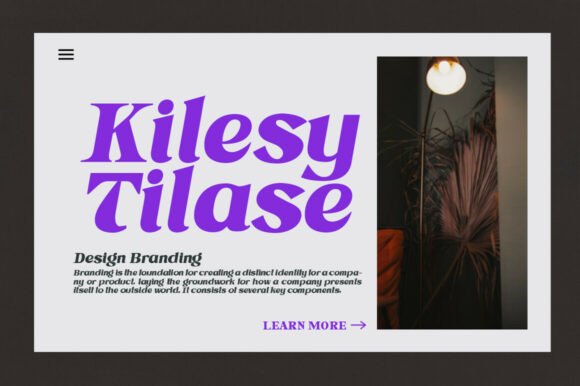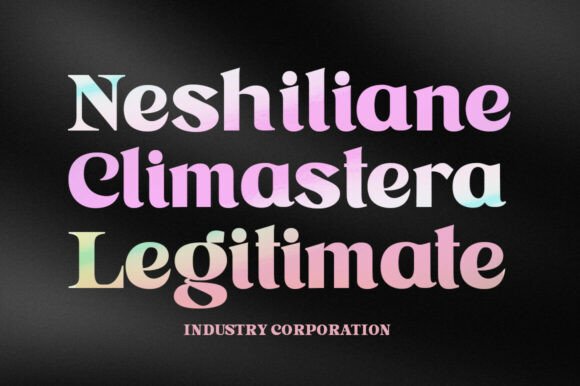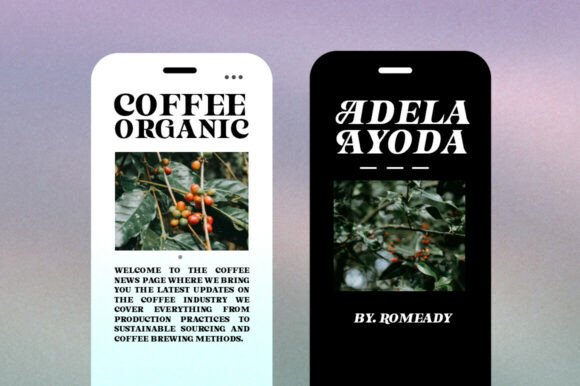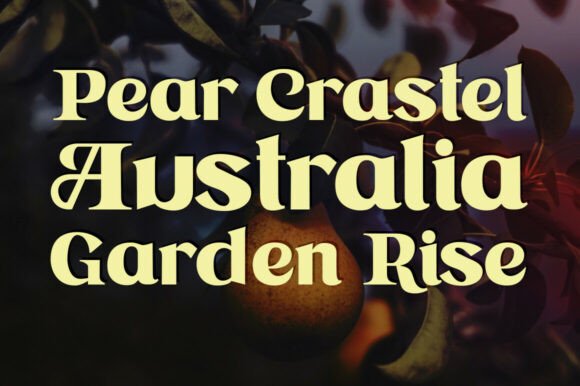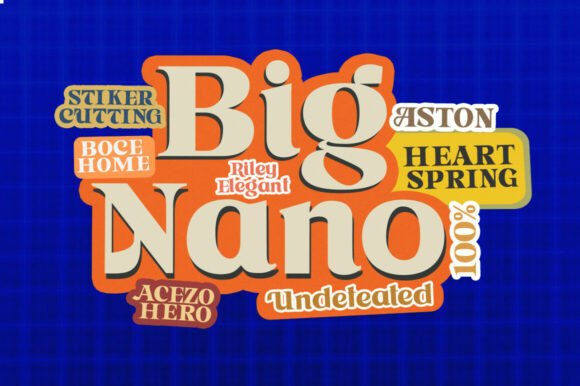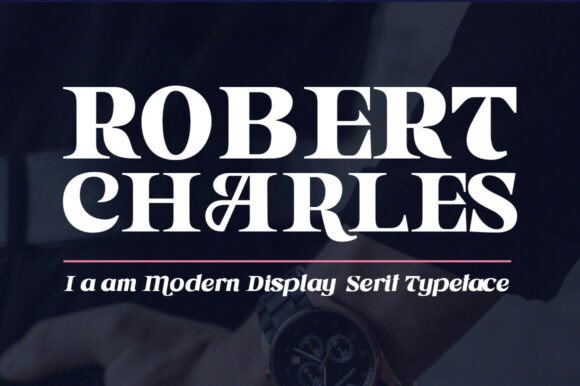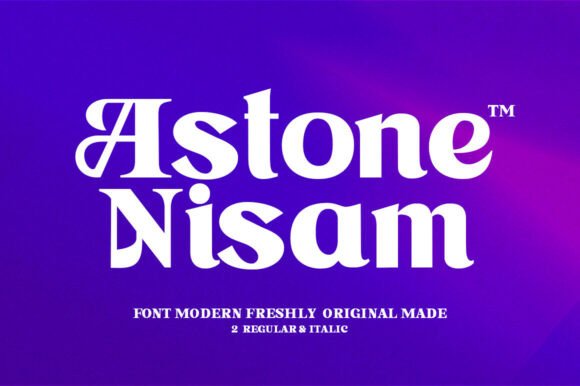
The Designer’s Delight: Astone Nisam Font
I’ll never forget the time I was working on a logo design project for a high-end boutique hotel. My client wanted a sophisticated, elegant look that would appeal to their upscale clientele. I spent hours scouring font libraries, but nothing seemed quite right. That was until I stumbled upon the Astone Nisam font. ✨ Its unique blend of serif and italic styles immediately caught my eye, and I knew I had found the perfect fit. In this article, I’ll share my experience with this versatile font, its features, and how to make the most of it in your designs.
An Honest Review of Astone Nisam
- ✅ Elegant and modern design that adds a touch of sophistication to any project
- ✨ Contrasting serif and italic styles that create a visually appealing effect
- 🔥 Free-flowing style that’s easy to read, even at smaller font sizes
- 🎨 Versatile and adaptable, perfect for a wide range of design applications
While Astone Nisam is an excellent font, it’s not without its quirks. ⚠️ Some users may find that the font’s unique style doesn’t suit every project or brand. Additionally, the font’s legibility may be affected if it’s used at very small sizes or in certain color combinations. 🤔
A Practical Guide to Using Astone Nisam
The Designer Inspiration Behind Astone Nisam
While the true story behind Astone Nisam’s creation is unknown, it’s easy to imagine that the designer was inspired by the world of high-end fashion and luxury branding. The font’s elegant, modern style is reminiscent of high-end fashion magazines and boutique hotel logos. The designer’s goal was likely to create a font that would evoke a sense of sophistication and refinement, while also being versatile and adaptable.
Q: What type of projects is Astone Nisam best suited for?
A: Astone Nisam is a versatile font that’s perfect for a wide range of design projects, including logos, advertisements, packaging, book and magazine covers, titles, and descriptions.
Q: Is Astone Nisam easy to read?
A: Yes, Astone Nisam is designed to be easy to read, even at smaller font sizes. Its unique style and contrasting serif and italic elements make it a joy to read.
Q: Can I use Astone Nisam with other fonts?
A: Yes, Astone Nisam can be paired with other fonts to create a unique and visually appealing design. Experiment with different font combinations to find the perfect look for your project.